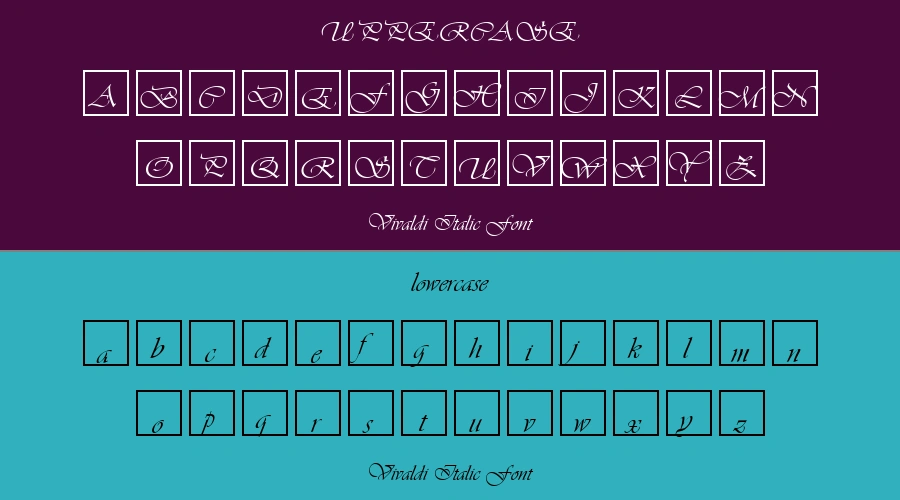
About Vivaldi Italic Font
When typographic excellence matters most, Vivaldi Italic Font delivers through its thoughtful blend of organic forms and emotional resonance. Specially crafted for motion graphics, it offers the consistency and scholarly value required for sophisticated design work. Every detail serves a purpose.
The character set showcases thoughtful details like rhythmic patterns alongside functional monogram components. This proves especially valuable in footnotes, where table alignment directly influences results. Particular attention was paid to character width and cultural context during development.